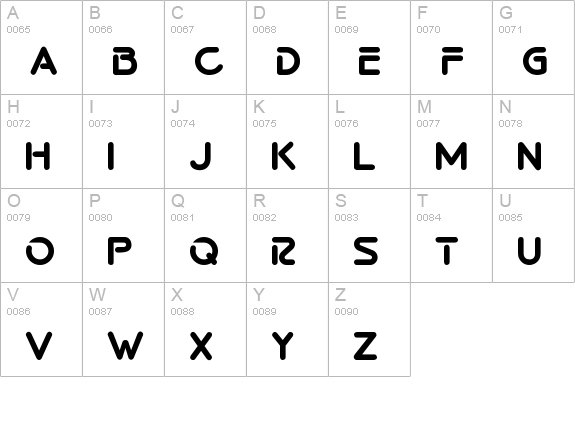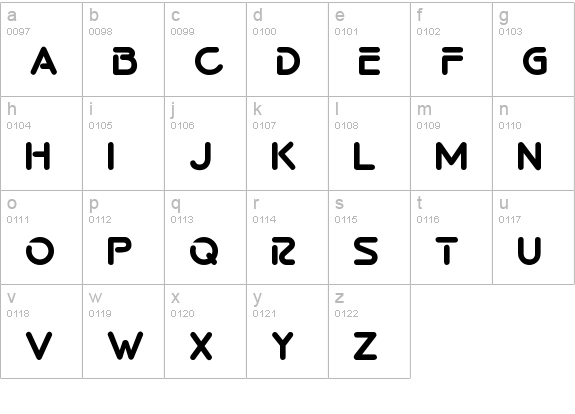
DressingForLess Beta Font Details
Introducing DressingForLess Beta, a stunning and versatile font that effortlessly combines elegance with playfulness. This modern typeface is perfect for adding a touch of sophistication and style to any design project. With its clean lines and unique character shapes, DressingForLess Beta stands out from the crowd, making it the ideal choice for logos, branding, invitations, and more. The best part? DressingForLess Beta is completely free! That's right, this exceptional font is freely available to download at FontsMarket.com. Now you can enhance your creative endeavors without breaking the bank. Whether you're a professional designer or a DIY enthusiast, DressingForLess Beta allows you to elevate your work to new heights without any financial constraints. Designed with utmost care and attention to detail, DressingForLess Beta offers a wide range of glyphs and ligatures, giving you endless possibilities to experiment and create. Its versatility enables seamless integration into various design styles, from minimalistic to bold and vibrant. DressingForLess Beta empowers you to unleash your creativity and bring your visions to life. The legibility of DressingForLess Beta is impeccable, making it effortlessly readable across different platforms and media. Its balanced proportions and well-crafted letterforms ensure optimal visibility, whether in print or on-screen. No matter the size or format, DressingForLess Beta remains crisp and clear, ensuring that your message is delivered with impact and clarity. So why wait? Enhance your design projects with DressingForLess Beta today! Download this remarkable font for free at FontsMarket.com and discover the endless possibilities it offers. DressingForLess Beta will undoubtedly become your go-to font, enabling you to create stunning designs that captivate and inspire. Embrace the freedom of creativity with DressingForLess Beta and let your imagination soar.